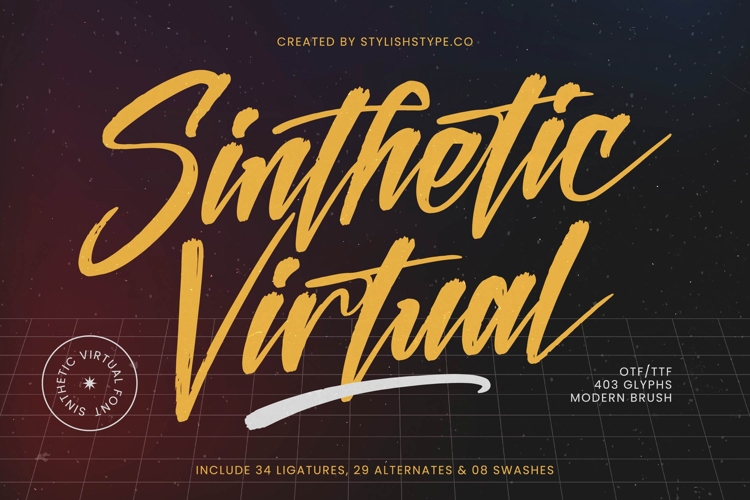
Sinthetic Virtual - Modern Brush Font
Sinthetic Virtual - Modern Brush Font. This compelling script delivers an immediate impact, capturing the spontaneous movement of a bold brush stroke with meticulous digital precision. Characterized by its high-contrast thick-and-thin lines and inherent texture, this font screams confidence and originality. It is the perfect choice for projects demanding an unforgettable visual presence and a truly authentic, hand-crafted feel.